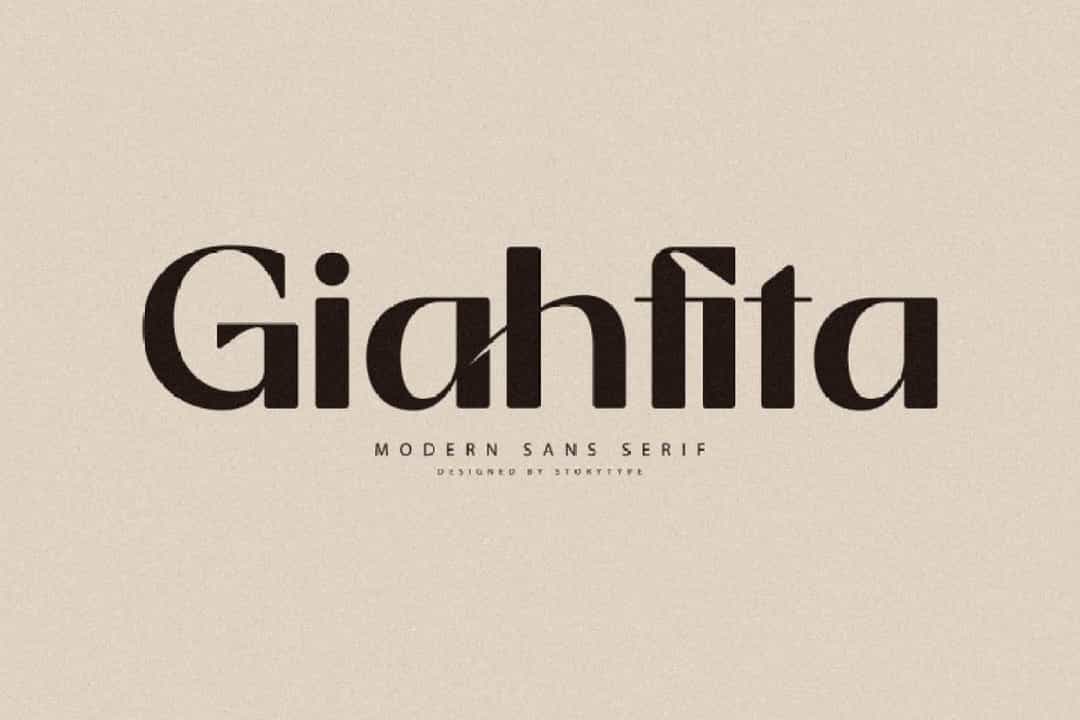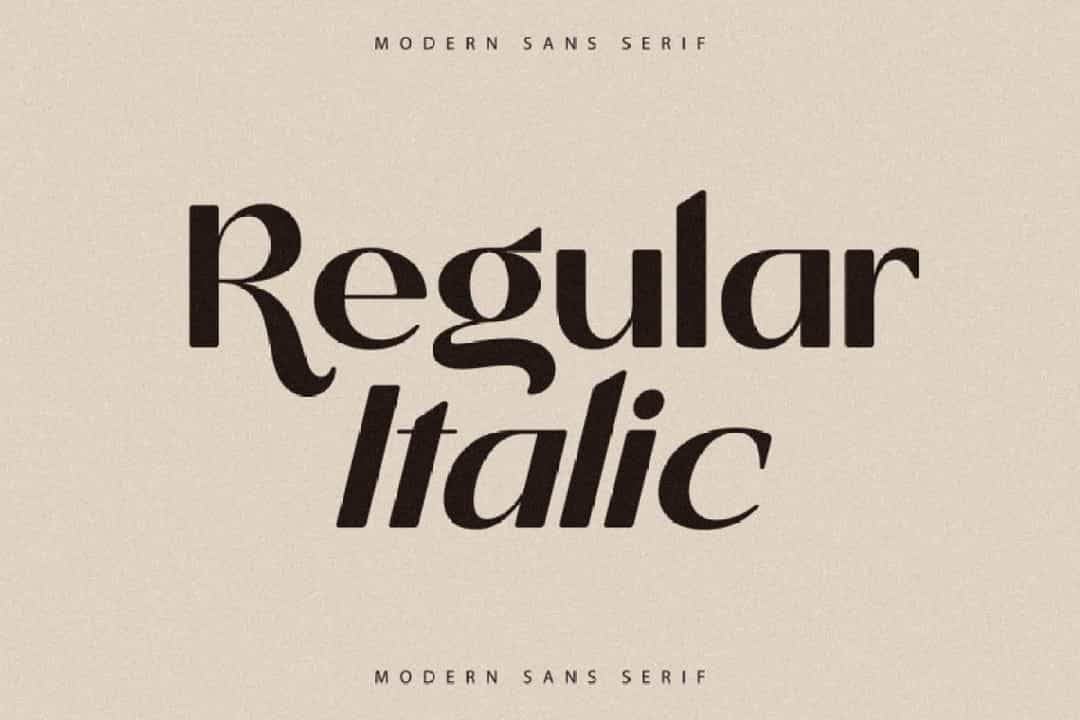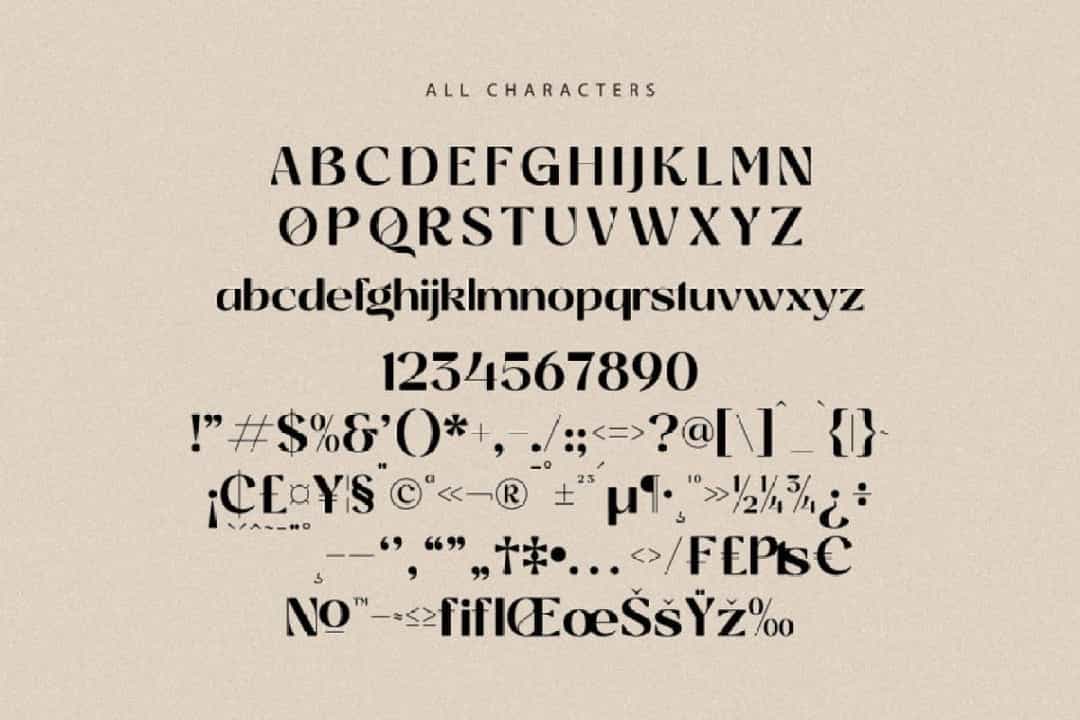
Giahfita is an elegant and modern sans serif typeface with an original style and elegant appearance, making it perfect for creating sophisticated logos, book or film name design, fashion brand clothing designs, magazines letters, quotes or any other purpose.